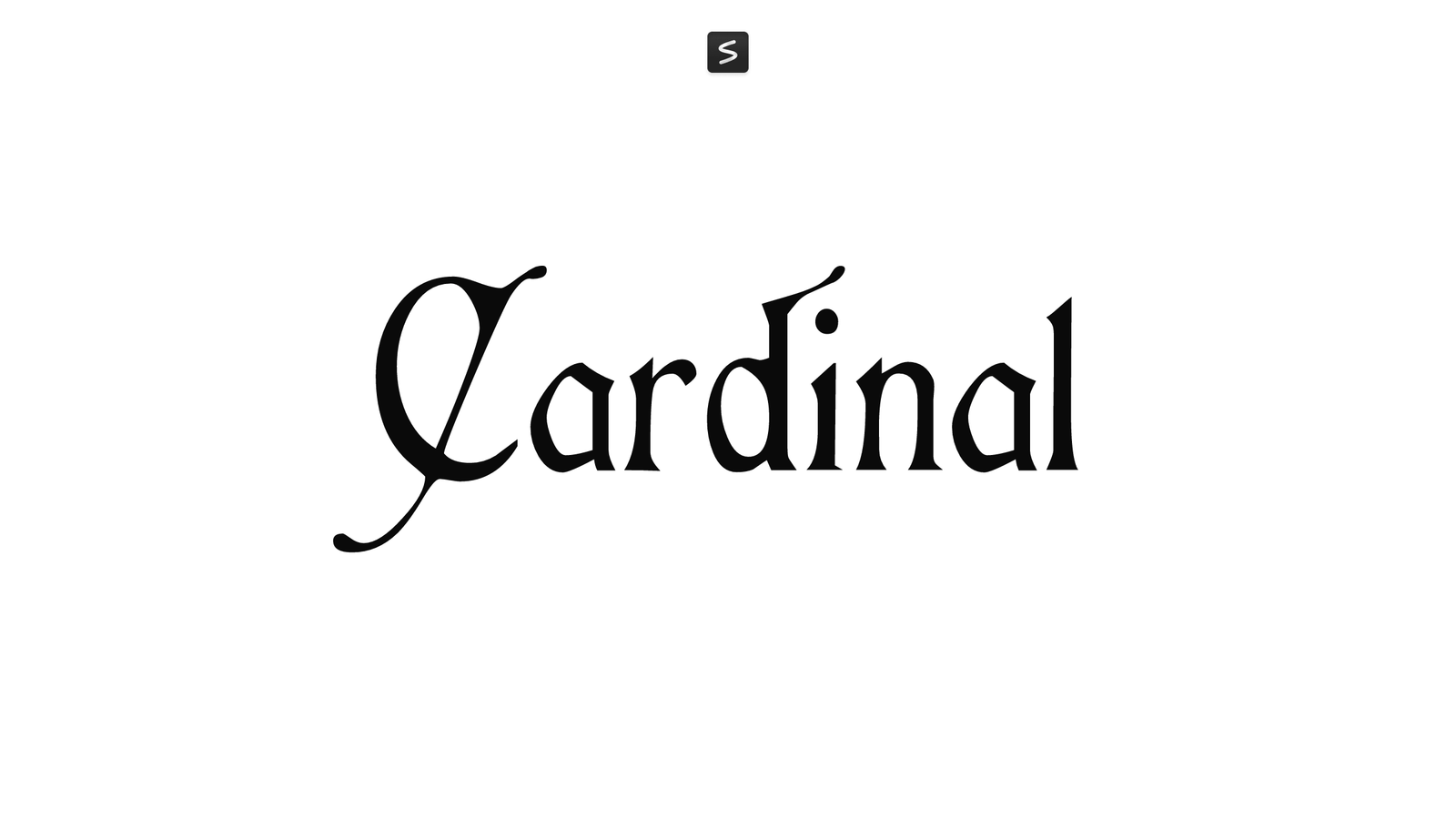
Cardinal is a medieval gothic font designed by Dieter Steffmann. It draws from historical manuscript letterforms, with tall, angular characters and ornate details that evoke illuminated texts and medieval calligraphy. The font has a distinctly formal and archaic quality, making it read as something pulled from old parchment or church documents.
The letterforms feature sharp serifs and decorative flourishes typical of blackletter and gothic scripts. Cardinal works well for fantasy book covers, historical fiction designs, medieval-themed posters, tabletop game materials, and anything that needs an authentic period feel. Its dramatic character makes it a natural choice for headers and titles rather than body text.
Cardinal is useful for designers and hobbyists working on projects with historical, fantasy, or dark aesthetic themes. It adds genuine period character without needing to layer multiple effects.